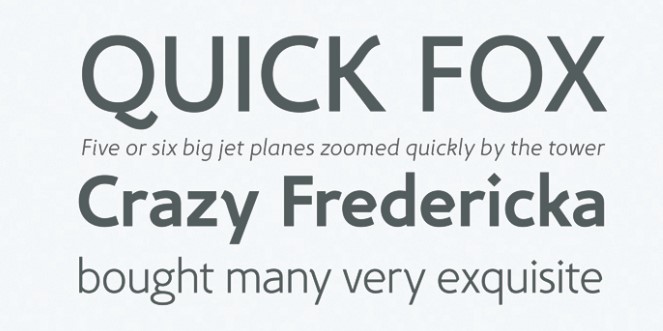
Introducing the Fox Sans TRF Font, a sans-serif typeface created by Ramiz Guseynov. After designing it, he published this typeface through TipografiaRamis.
It is the new typeface that is purely based on the famous typeface Fox family font, which was released by T26 type foundry in 2001. This typeface is a great pair of adelle font and all of its styles.
All the design of the Fox font had to be redesigned to increase legibility but in that process, they didn’t sacrifice the originality. Now, this font family consists of two subfamilies: Fox TRF and Fox Sans TRF. This font family contains six styles, in roman and italic, respectively. The lowercase letters of this typeface have been made in a genuine neo-grotesque shape that doesn’t contain any decorative distractions.
View of Fox Sans TRF Font